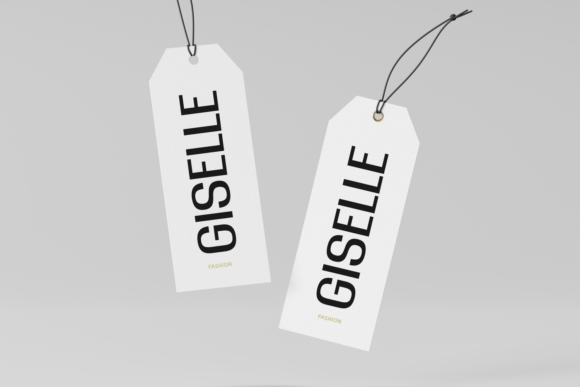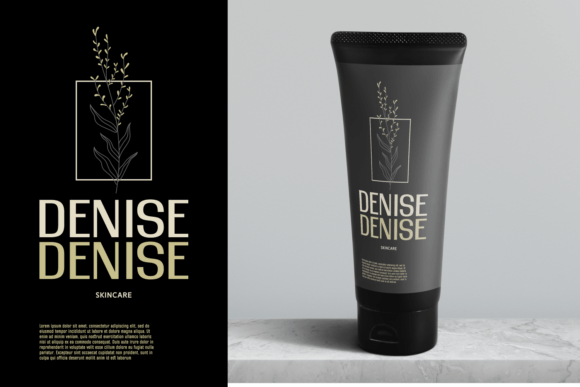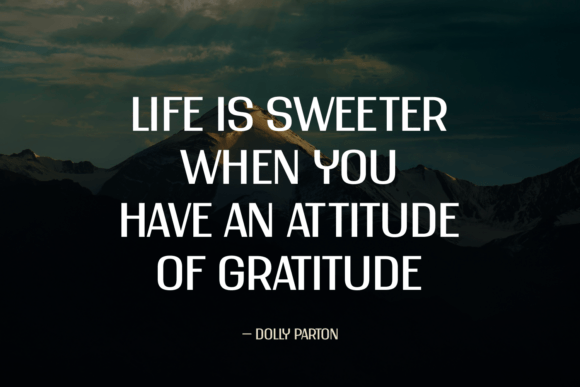
Introduction to Palome Font
As designers, we’ve all been there – staring at a blank canvas, searching for the perfect font to bring our creative project to life. It’s a moment of excitement and anticipation, knowing that the right typography can elevate our message and leave a lasting impression. For many, this moment of truth is when the Palome Font comes into play.
This sleek, modern sans-serif font has been a game-changer for designers, offering a unique blend of elegance and simplicity. With its clean lines and balanced proportions, Palome Font is a versatile design resource that’s perfect for branding, editorial design, and digital interfaces.
Key Features of Palome Font
- High-quality design resource suitable for creative projects, including graphics, logos, and typography.
- Features a transparent background, allowing for easy integration with various design elements.
- Includes a large character set, making it suitable for multilingual projects and designs.
- Designed with a high-resolution (300 DPI) for crisp and clear display on various devices and screens.
- Unique, modern aesthetic that can add a touch of sophistication to any creative project.
Honest Review: Palome Font
I recently stumbled upon the Palome Font while searching for a free download to enhance my creative project. As a designer, I’m always on the lookout for high-quality fonts that can elevate my design work.
What works well for the Palome Font is its unique and elegant design. The font is perfect for any project that requires a touch of sophistication and refinement. The transparent background also makes it easy to use in various design scenarios.
Here are some key features that I appreciate about the Palome Font:
- Unique and elegant design style
Overall, I think the Palome Font is a great addition to any designer’s toolkit. While it has some limitations, its unique design and high-quality feel make it a worthwhile download for any creative project. ✨
Palome Font Overview
The Palome Font is a versatile design resource ideal for creative projects requiring high-quality typography. It’s available for free download and features a transparent background, making it easy to integrate into various designs.
Tips for Getting the Most Out of Palome Font
For optimal results, use Palome Font in conjunction with high-quality images and graphics. Experiment with different font sizes and styles to create visually appealing designs.
Common Use Cases for Palome Font
Palome Font is ideal for creative projects, including social media graphics, presentations, reports, and business documents. Its transparent background and high-quality design make it a versatile design resource for various applications.
Alternatives to Palome Font
The Great Vibes Font is a beautiful, handwritten script font that is perfect for adding a touch of elegance to your design project. It’s ideal for use in creative projects such as wedding invitations, menus, and other design resources that require a high-quality, artistic touch. With its smooth, flowing lines and transparent background, the Great Vibes Font is a great alternative to Palome Font for designers looking to add a personal touch to their work.
Comparison to Palome Font: While Palome Font is more modern and sleek, Great Vibes Font has a more vintage and romantic feel. Great Vibes Font is perfect for designers who want to add a touch of whimsy and personality to their design project.
The Alex Brush Font is a elegant, handwritten script font that is perfect for use in design projects that require a touch of sophistication and refinement. It’s ideal for use in creative projects such as logos, branding materials, and other design resources that require a high-quality, artistic touch. With its smooth, flowing lines and transparent background, the Alex Brush Font is a great alternative to Palome Font for designers looking to add a touch of luxury to their work.
Q: Is Palome Font a high-quality design resource?
Yes, Palome Font is a high-quality design resource, carefully crafted to meet the needs of designers working on creative projects. Its clean and modern design makes it an excellent choice for a wide range of applications, from branding and marketing materials to digital products and print media.